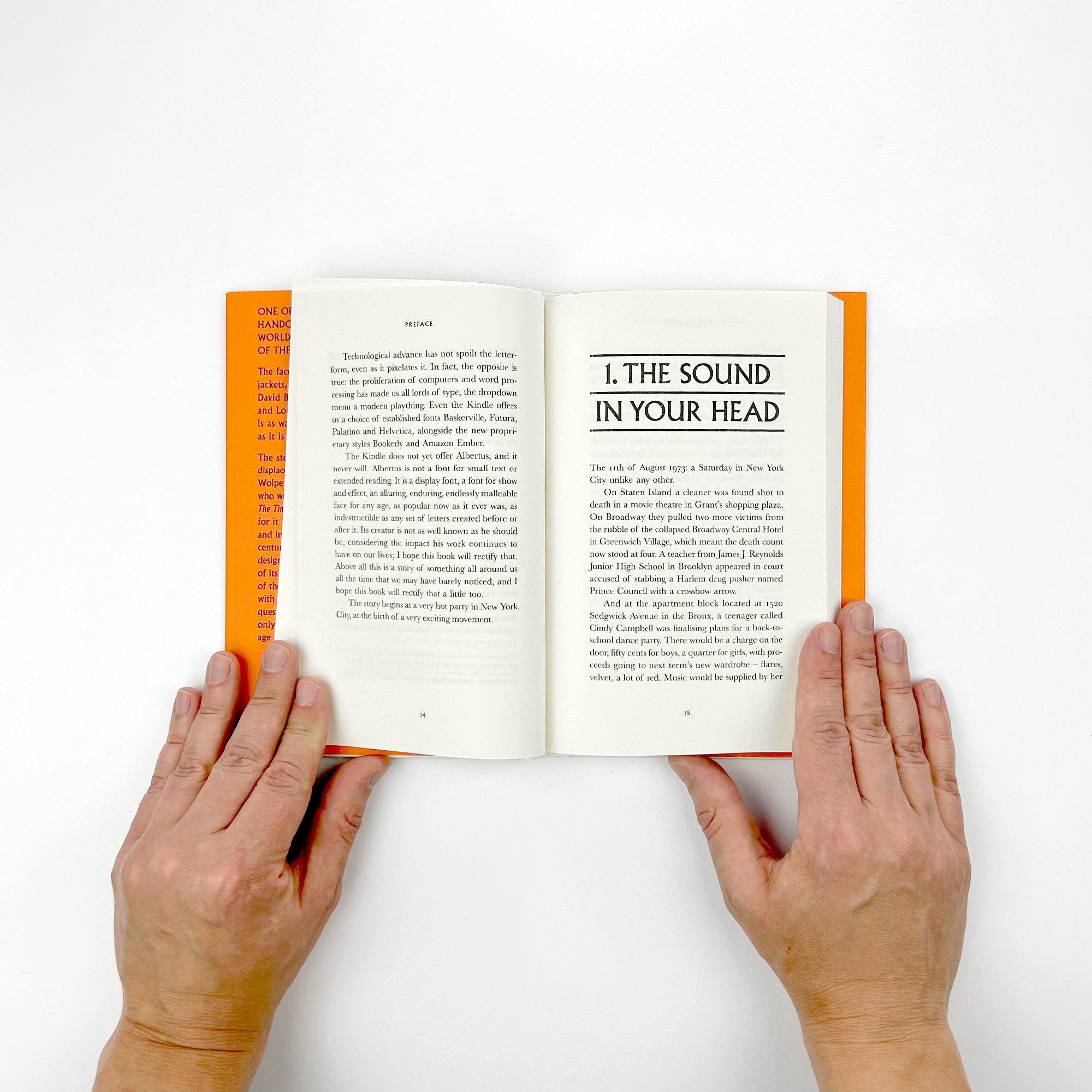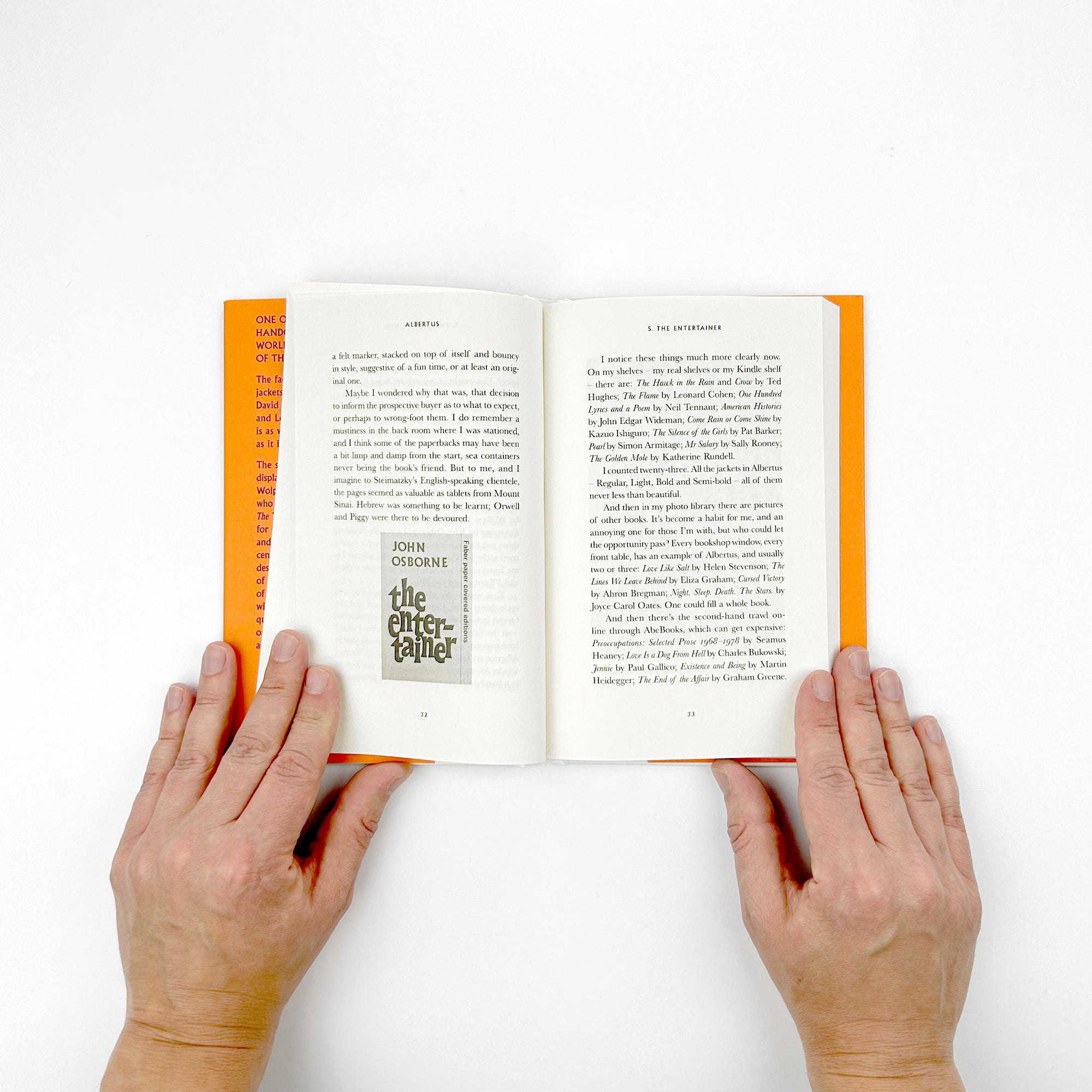
One of the most beautiful handcrafted typefaces in the world, Albertus is also one of the most enduring.
The face of thousands of book jackets, and the chosen look for David Bowie, Coldplay, Star Wars and London street signs, Albertus is as as warmly enticing on film posters as it is on memorial plaques.
The story of the font is one displacement (its designer Berthold Wolpe was a German Jewish refugee who went on to design the masthead for The Times), but also one of permanence, for it has proved a fresh, vibrant and indestructible face for almost a century. In this unique celebration, the designer's children reveal the history of its creation and the erratic brilliance of their father, while the book grapples with one of the fundamental artistic questions: what makes great art not only survive but flourish in each new age and medium?